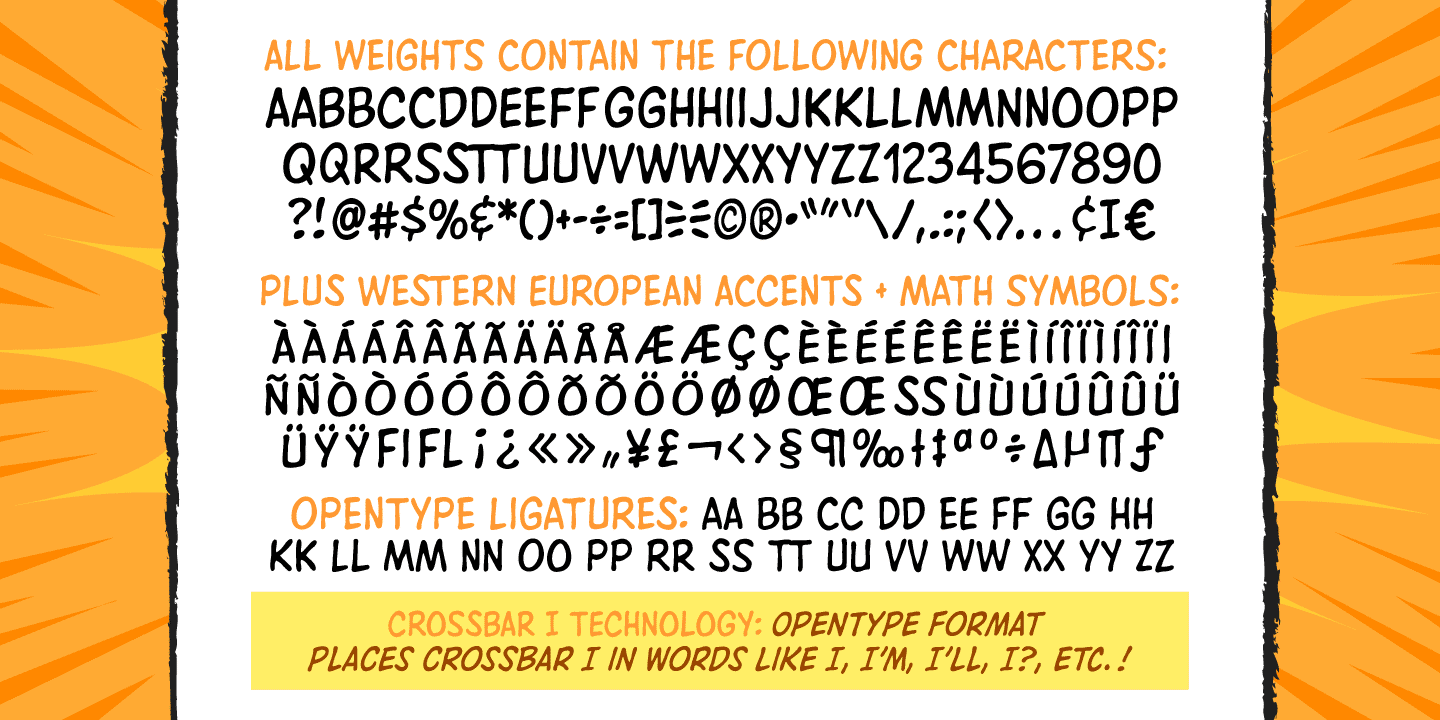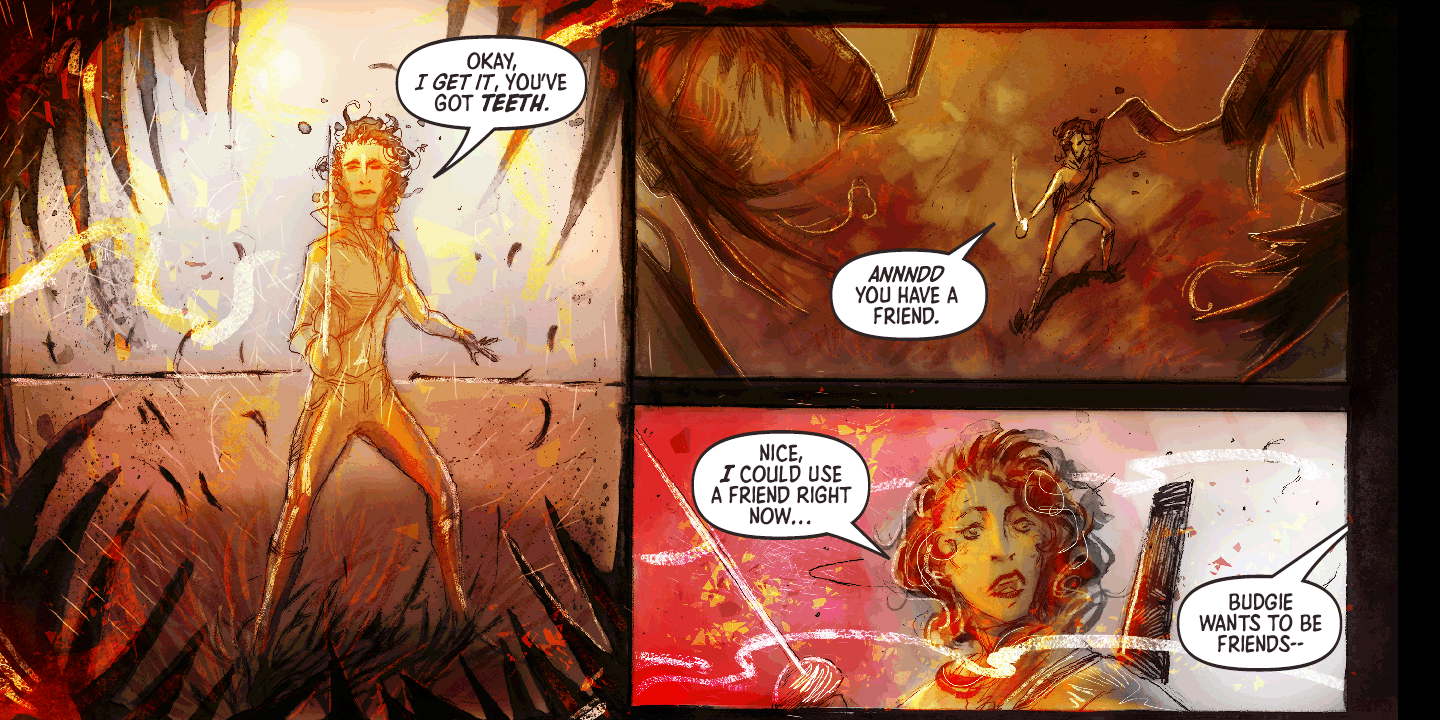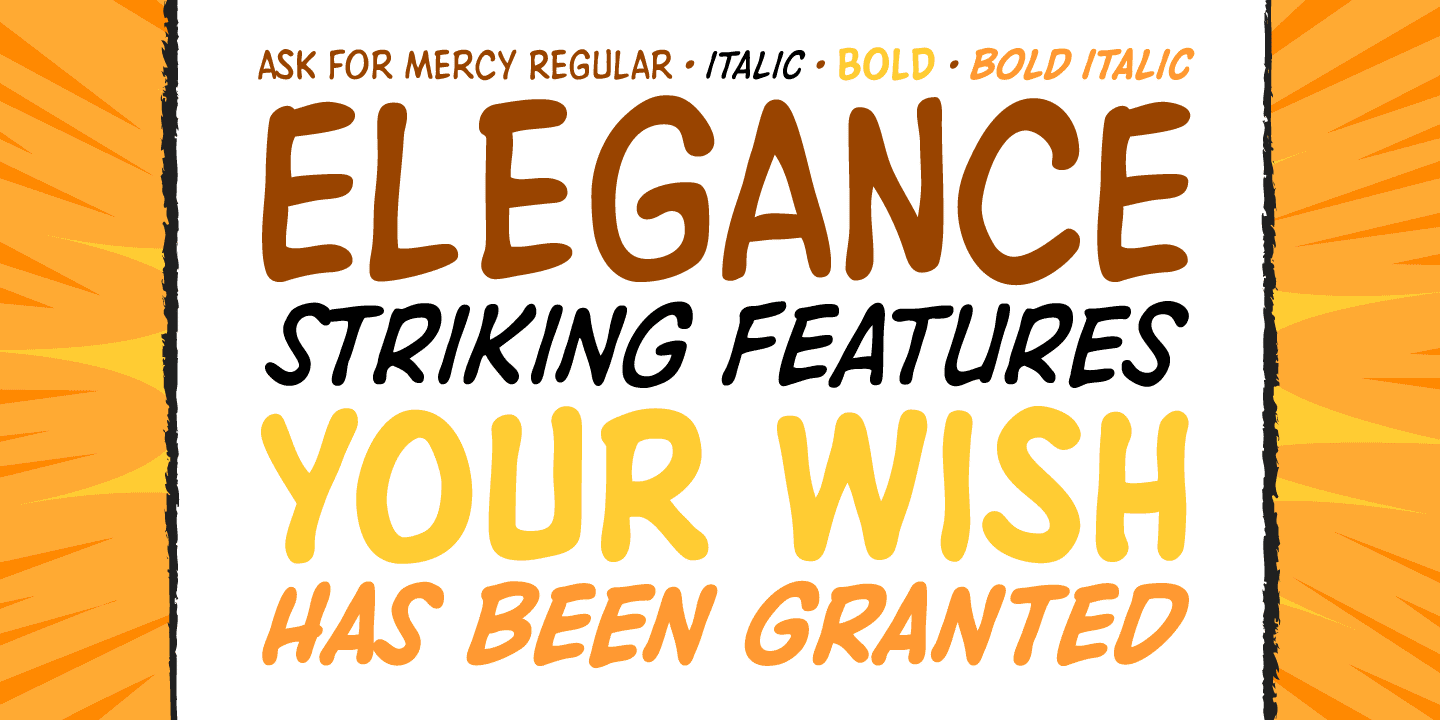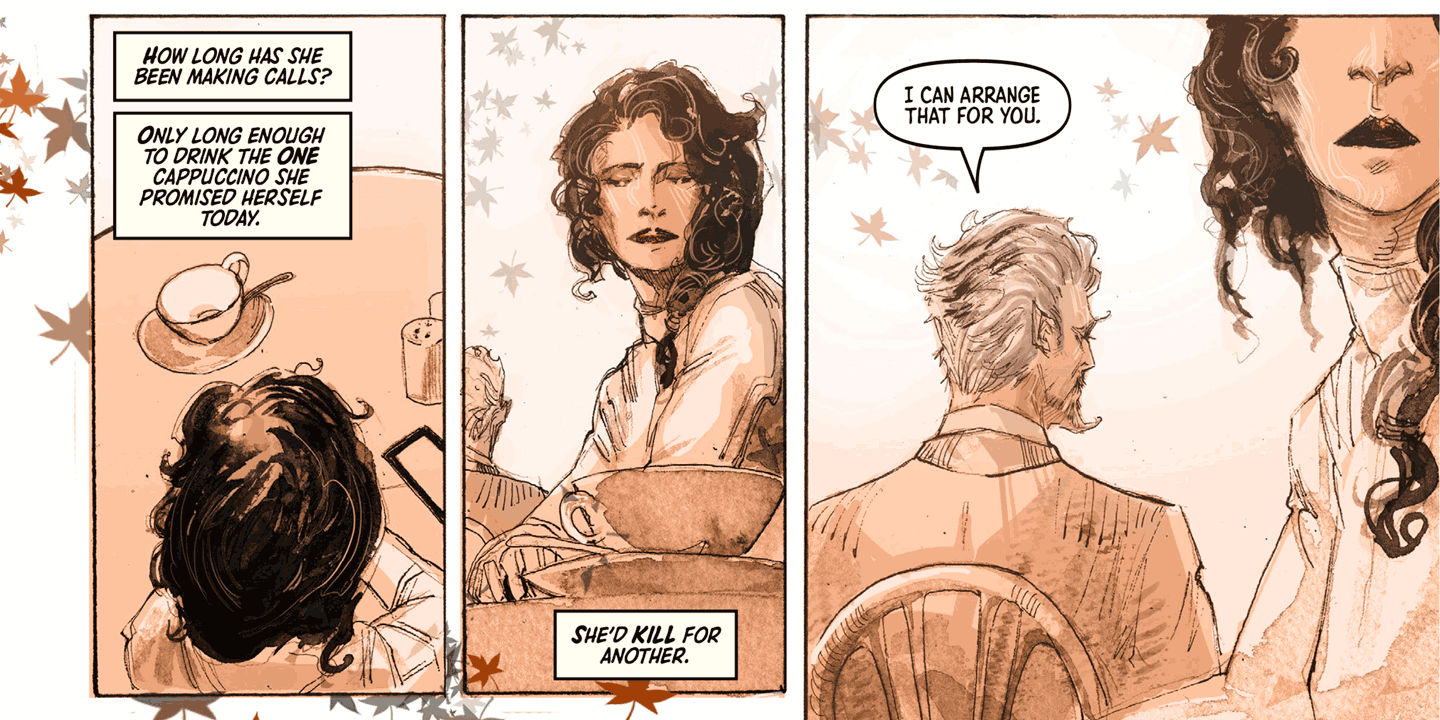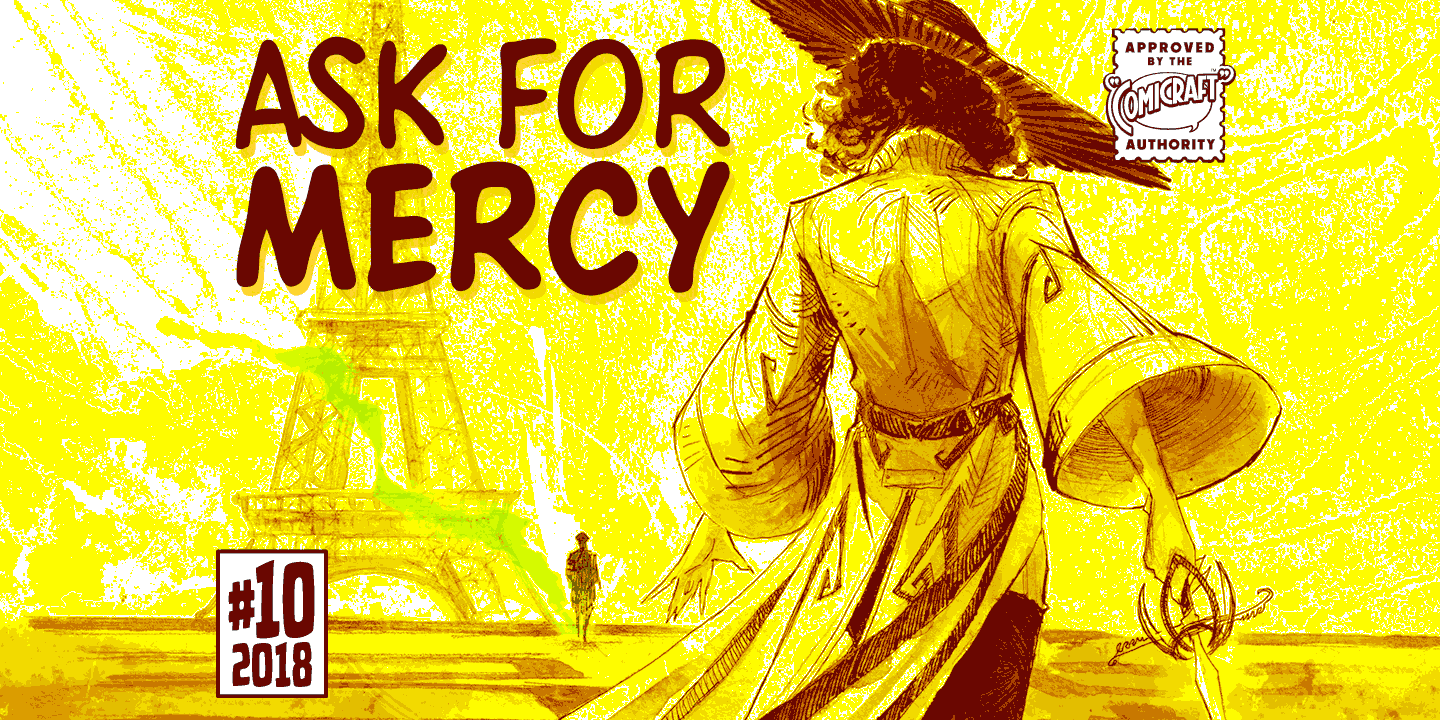
About the Ask For Mercy Font
About Ask For Mercy Font Family She’s tall and thin with elegant, long legs and striking features. She can be seen in Comicraft’s COMIXOLOGY ORIGINALS series, ASK FOR MERCY. No, not Mercy herself — we’re talking about the ASK FOR MERCY font! Yes, you asked for Mercy — begged for it even — and now we are granting it to you! Mercy Mercy Me.
ASK FOR MERCY contains alternate uppercase alphabets, auto-ligatures for a more random, hand-drawn appearance, and Comicraft’s revolutionary Crossbar I Technology™, which puts that tricky character in exactly the right places. Designers: John RoshellPublisher: ComicraftFoundry: ComicraftDesign Owner: ComicraftMyFonts debut: Apr 26, 2019 Ask For Mercy